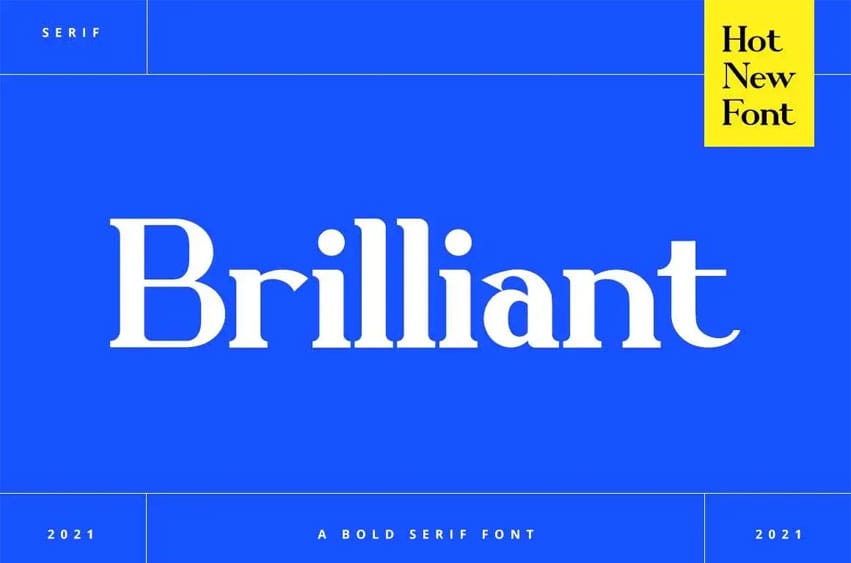
Brilliant Font is an impressive and thickly letters serif font.
With distinctively-shaped letters and its heavy construction, Brilliant can add a distinctive look to a variety of designs that require something special.